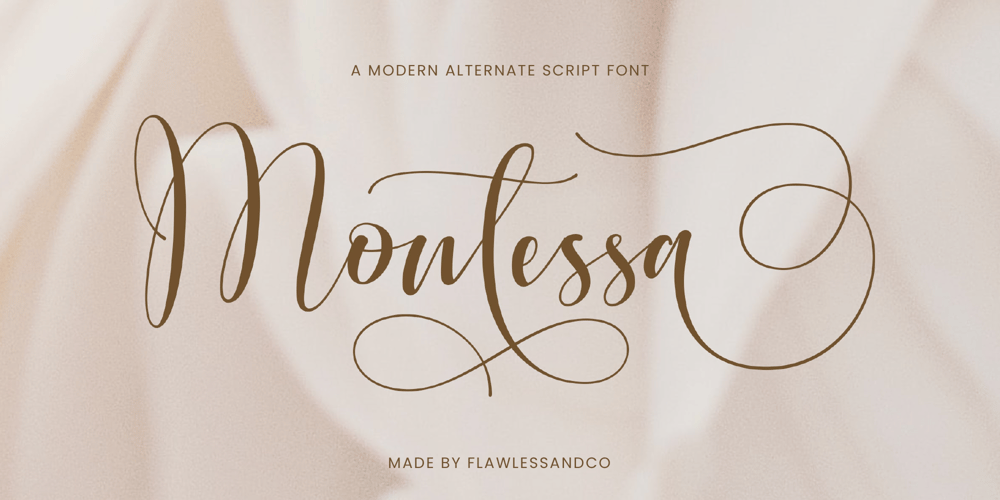
Montessa Font Family was designed by Achmad Yani and published by Flawlessandco. Montessa contains 1 styles and family package options. Unveil a new era of design with “Montessa,” a contemporary alternate script font that seamlessly blends modern aesthetics with a touch of timeless elegance. With its fluid strokes and versatile alternates, Montessa transforms any project into a sophisticated masterpiece.There’s some connected letters and some alternates that suitable for any graphic designs such as branding materials, t-shirt, print, business cards, logo, poster, t-shirt, photography, quotes .etcThis font support for some multilingual. Also contains uppercase A-Z and lowercase a-z, alternate character, numbers 0-9, and some punctuation.If you need help, just write me! Thanks so much for checking out my shop!